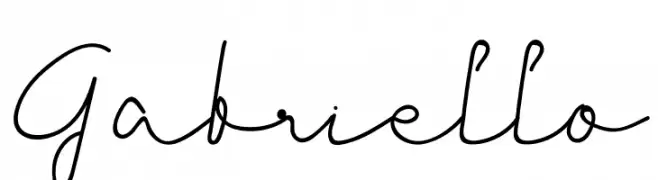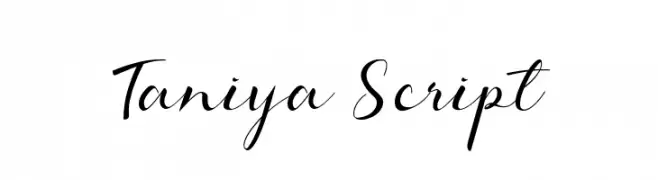
A graceful script font with flowing, connected strokes and a handwritten style.
An elegant and flowing script font with graceful loops and cursive strokes.
A graceful script font with flowing, cursive strokes and elegant loops.
An elegant script font with flowing, interconnected letters and graceful swashes.
A fluid and elegant script font with graceful curves and subtle flourishes.
A fluid and elegant script font with smooth, flowing lines and graceful curves.
An elegant script font with flowing, cursive strokes and graceful curves.
A graceful and fluid script font with elegant, connected strokes.
A graceful and flowing script font with an elegant handwritten style.
An elegant and sophisticated cursive font with graceful loops and swirls.